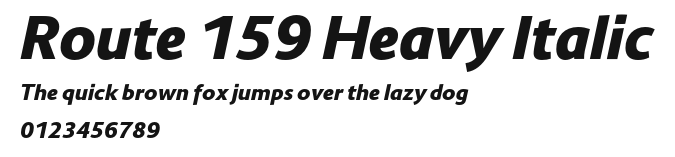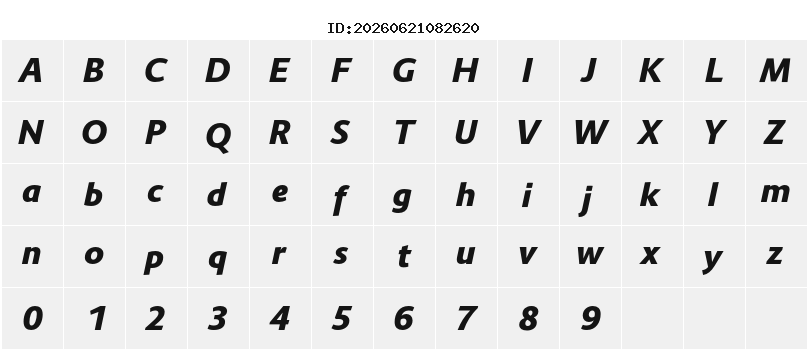
Route 159 Heavy Italic Preview
• Font Name: Route 159 Heavy Italic
• Full Font Name: Route159-HeavyItalic
• PostScript Name: Route159-HeavyItalic
• Designer: Sora Sagano
• Manufacturer: Sora Sagano
About Route 159 Heavy Italic.otf
Route 159 Heavy Italic.otf is a modern, elegant sans-serif font designed for ultimate readability and visual harmony. Perfect for branding, headlines, web design, and print materials.